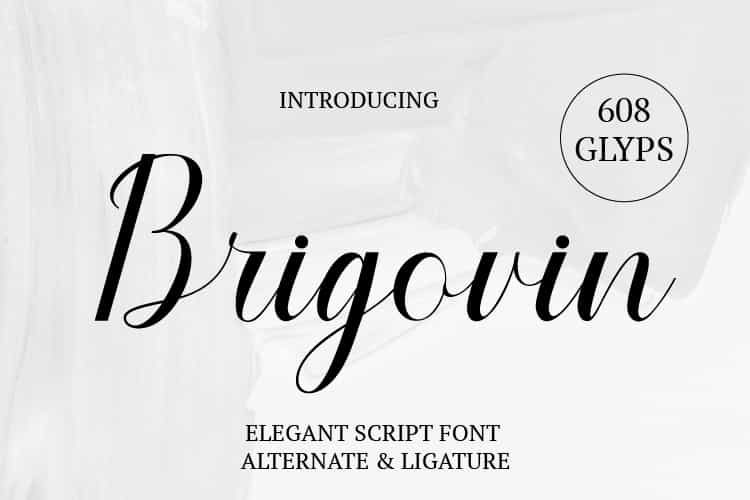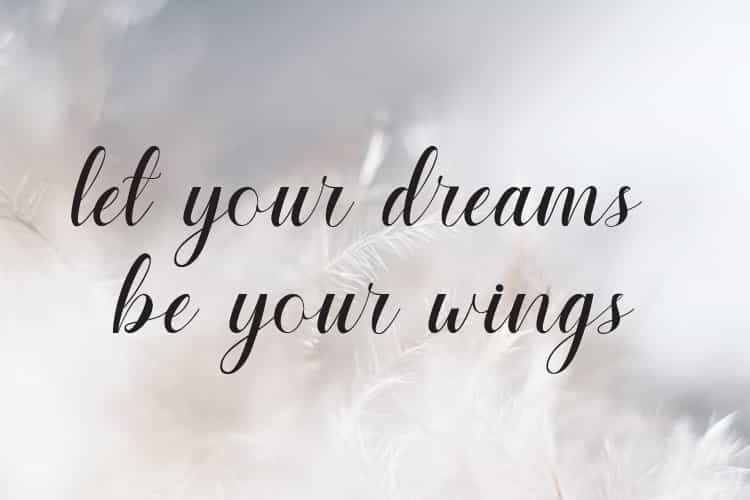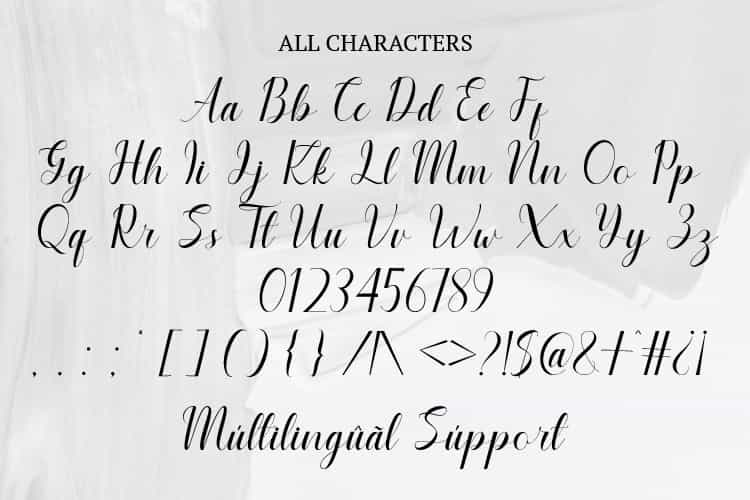
Brigovin can be described as an elegant handwritten font, making it the ideal choice for creating captivating branding, logos and quotes. Each letter of Brigovin stands out with its distinct appearance to bring life into your designs! Plus its authentic appearance brings authenticity into all your projects!